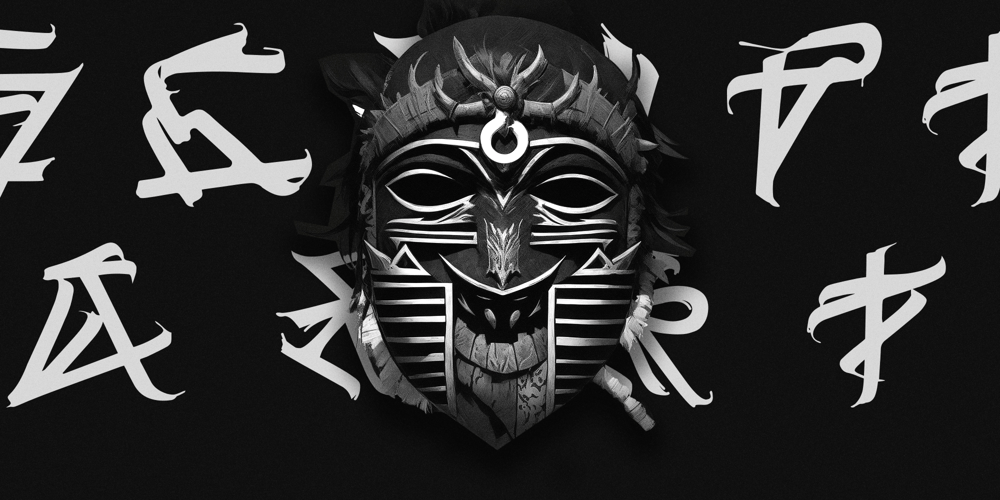
Script Art Font Family was designed by Artur Chepurko and published by Dedsign. Script Art contains 1 styles and family package options. ScriptArt is a modern hand-made font that combines calligraphy, typography and graffiti. This project is inspired by calligraphy and its modern interpretation. Simply put, it is a conscious effort to turn symbols or words into a visual composition.Scriptart comes with a set of capital letters and punctuation marks. This font can be used for many design projects, including printed materials, logos, fashion design, and so on.Supported languages: English, Russian, Ukrainian.